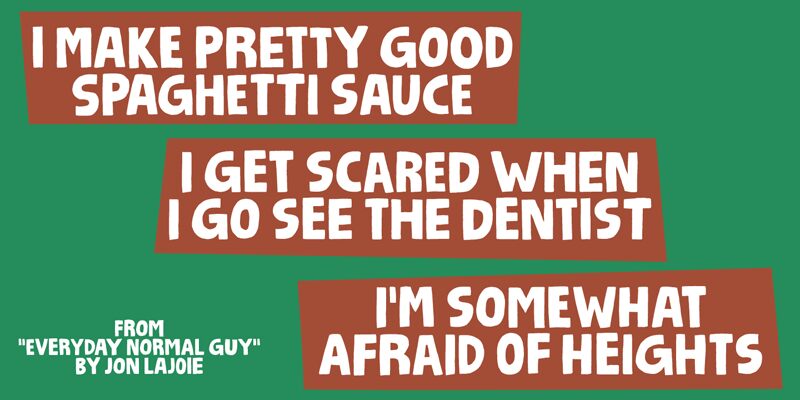
Salacious DEMO Regular
Salacious, a bold and playful display font by renowned designer Pizzadude, is the perfect choice for projects that demand attention. With its cartoon-inspired style and strong weight, this font injects a vibrant energy into any design.
Capture the essence of children's books with captivating headlines or create eye-catching logos for entertainment brands. Salacious brings life to packaging designs, posters, and advertisements with its quirky charm. Its versatility allows it to shine in various creative endeavors - from gaming interfaces and comic books to animated videos and social media graphics. Let your imagination run wild with Salacious!